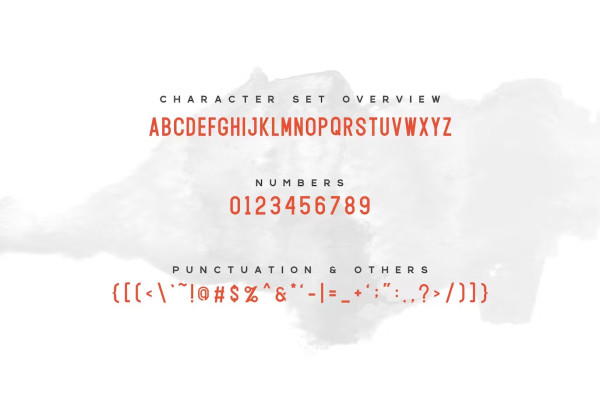
Exort Font
Exort Font is Sans Serif Font by Sagesmask, Perfect for any print product such a poster, flayer, t-shirt,etc. this font is match to create your branding product or personal project.